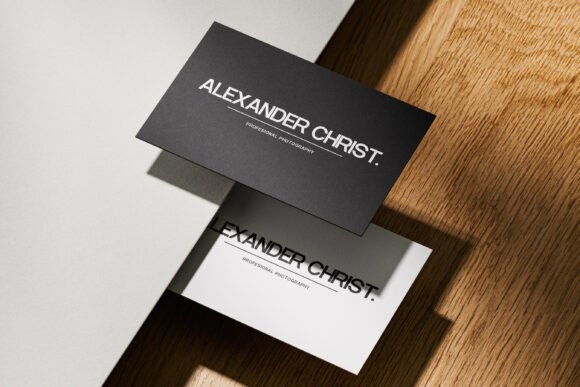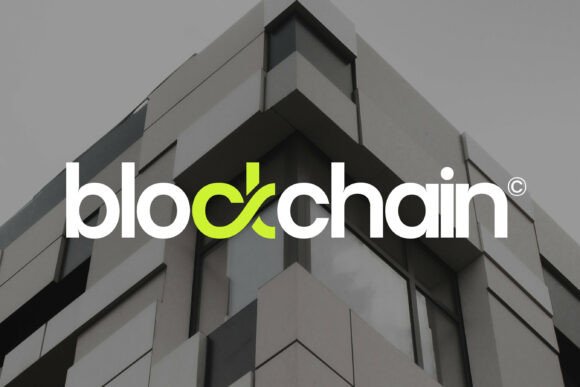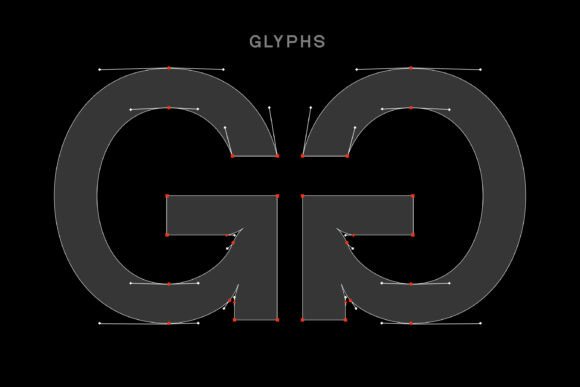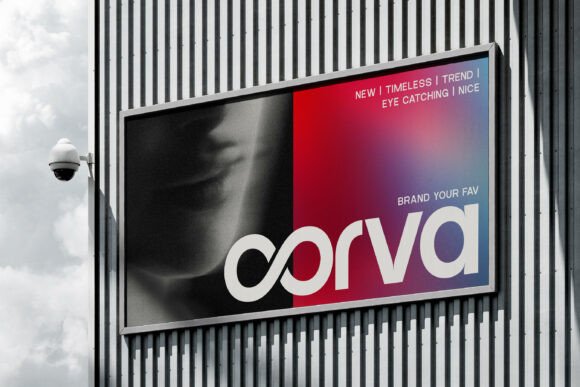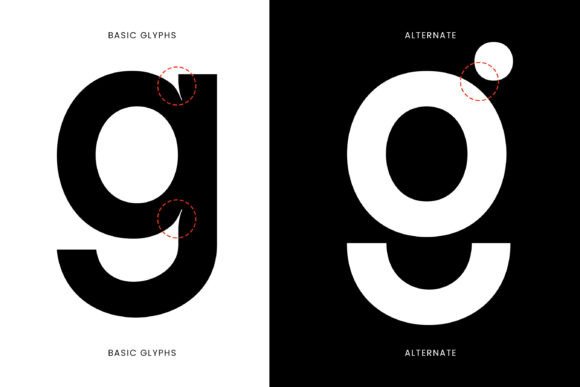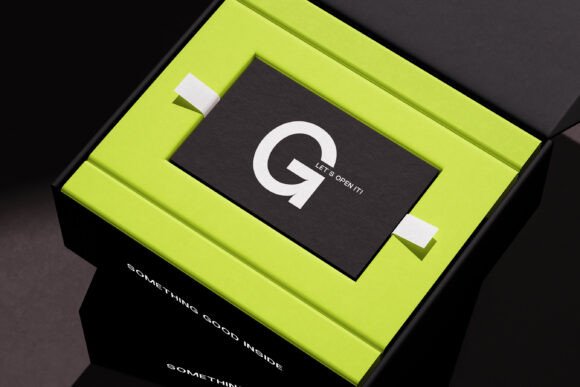
Introducing Agootack Font: The Ultimate Modern Sans Serif for Clean and Professional Designs
In the world of typography, a font can make or break the visual identity of a project. For designers and crafters looking for a modern, minimalist, and professional sans serif typeface, look no further than Agootack Font. This sleek and stylish font is specifically crafted for clean, professional, and futuristic designs, making it perfect for a wide range of applications.
What Makes Agootack Font Stand Out?
Agootack Font boasts smooth curves, unique letterforms, and stylish ligatures that deliver a fresh and distinctive look. Its modern and minimalist design makes it an excellent choice for corporate and contemporary aesthetic projects. The font’s balance between simplicity and character makes it highly versatile for both digital and print use.
One of the standout features of Agootack Font is its elegant alternates and ligatures. These allow designers to create unique and custom typography with ease, adding a touch of sophistication to any project. Whether you’re working on a sleek logo, a tech startup brand, or a modern editorial layout, Agootack Font provides a refined and stylish finish.
Agootack Font is perfect for a variety of design projects, including:
- Logo Design: Create a lasting impression with a custom logo that exudes professionalism and style.
- Corporate Branding: Establish a strong brand identity with a font that screams modernity and sophistication.
- Modern Business Identity: Give your business a fresh and contemporary look that sets it apart from the competition.
- Minimalist Design: Achieve a clean and clutter-free design aesthetic with Agootack’s simple yet elegant design.
- Tech & Startup Projects: Give your tech or startup project a modern and innovative look that appeals to a young and tech-savvy audience.
- Editorial Layouts: Add a touch of sophistication to your editorial layouts with Agootack’s elegant design.
- Social Media Graphics: Create engaging social media graphics that stand out in a crowded online space.
- Website Typography: Enhance your website’s typography with a modern and stylish font that improves readability and user experience.
- Packaging Design: Give your packaging a modern and sleek look that showcases your brand’s personality.
Why Choose Agootack Font?
Agootack Font is an excellent choice for designers and crafters looking for a modern, minimalist, and professional sans serif typeface. Its unique design, elegant alternates, and ligatures make it a versatile font that can be used for a wide range of design projects.
With Agootack Font, you’ll be able to:
- Create a strong brand identity that stands out in a crowded market.
- Enhance your design projects with a modern and stylish typography.
- Improve readability and user experience with a clean and elegant design.
In conclusion, Agootack Font is a must-have for designers and crafters looking for a modern, minimalist, and professional sans serif typeface. Its unique design, versatility, and range of applications make it an excellent addition to any design project.